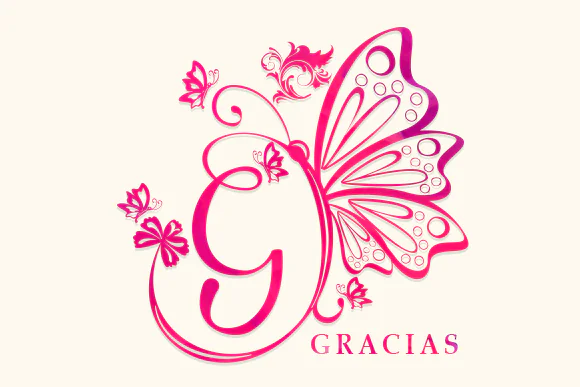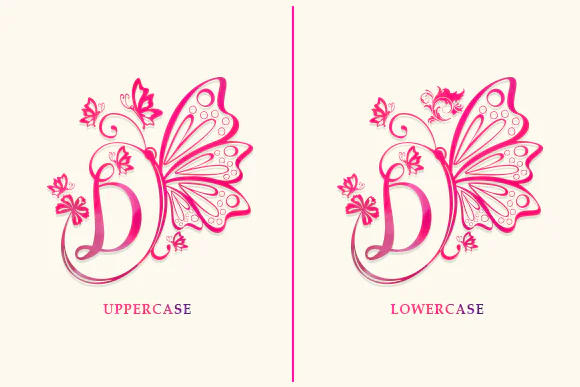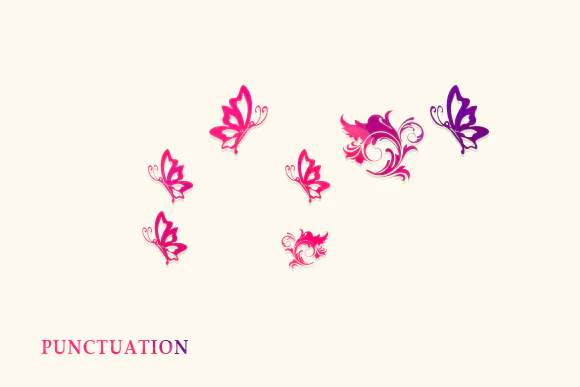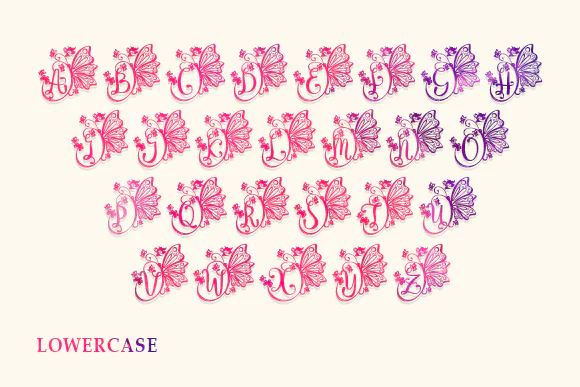
Butterfly Monogram Font | Elegant Decorative Butterfly Typeface for Wedding Invitations, Stationery Art, Greeting Cards, Social Media Posts, Logos & Romantic Designs
Create elegant, graceful, and beautifully decorated designs with Butterfly Monogram Font, a charming decorative typeface featuring lovely ornamental details. With its authentic artistic feel and soft butterfly-inspired appearance, this font is perfect for projects that need beauty, romance, elegance, and a personalized touch.
Butterfly Monogram Font is ideal for designers, crafters, wedding stationery creators, invitation makers, small business owners, branding designers, and digital product sellers who want a stylish font for refined creative projects. It works beautifully for wedding invitations, save-the-date cards, greeting cards, thank-you cards, bridal shower designs, stationery art, social media posts, monograms, boutique logos, stickers, labels, packaging, wall art, and printable crafts.
Its decorative butterfly-inspired style helps make every design feel delicate, feminine, and memorable. Whether you are creating a romantic wedding monogram, elegant stationery set, beautiful greeting card, floral social media graphic, or personalized logo design, Butterfly Monogram Font adds a graceful finishing touch to your typography.
This font is especially suitable for wedding themes, feminine branding, butterfly artwork, romantic designs, handmade products, and elegant printable projects.
• Wedding invitations
• Save-the-date cards
• Bridal shower designs
• Greeting cards
• Thank-you cards
• Stationery art
• Social media posts
• Butterfly monograms
• Boutique logos
• Stickers and labels
• Product packaging
• Wall art prints
• Romantic quote designs
• Printable crafts
• Elegant branding projects
Key Style Features
• Elegant decorative font style
• Lovely ornamental details
• Butterfly-inspired appearance
• Authentic artistic feel
• Romantic and feminine design style
• Perfect for monograms and invitations
• Great for stationery and greeting cards
• Ideal for premium printable projects